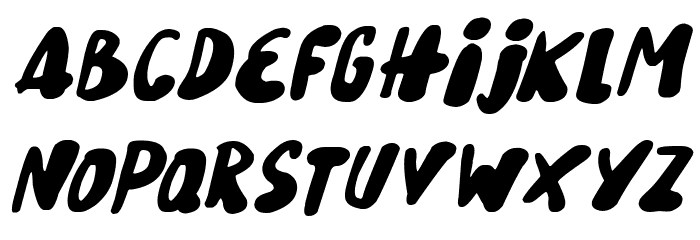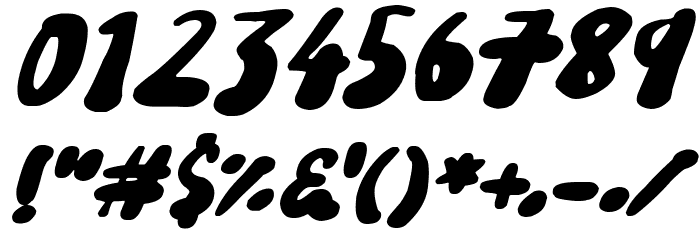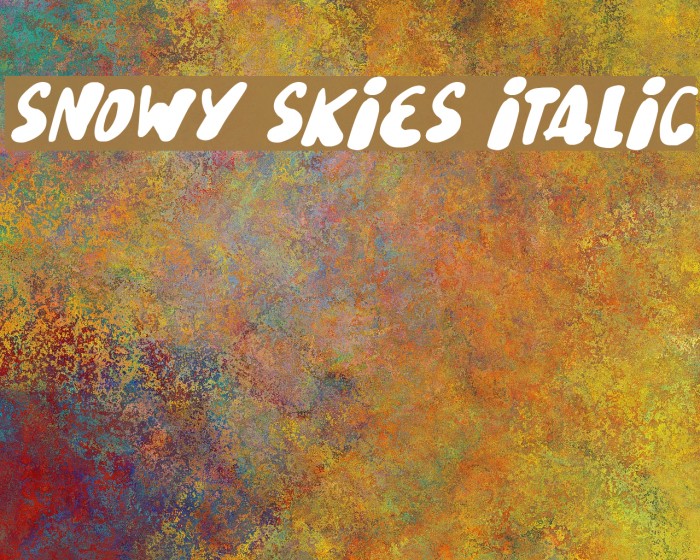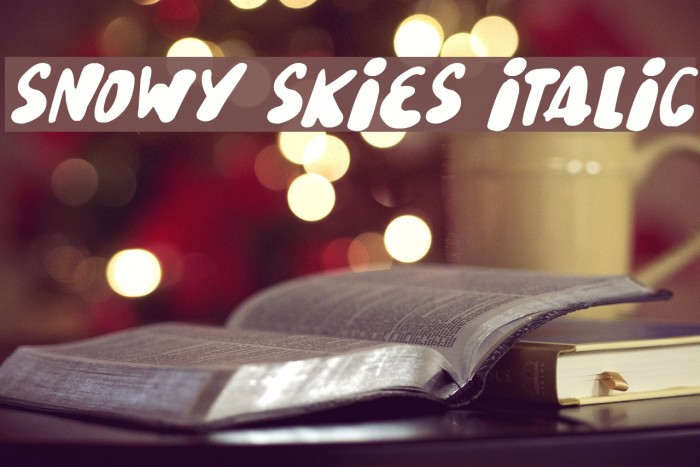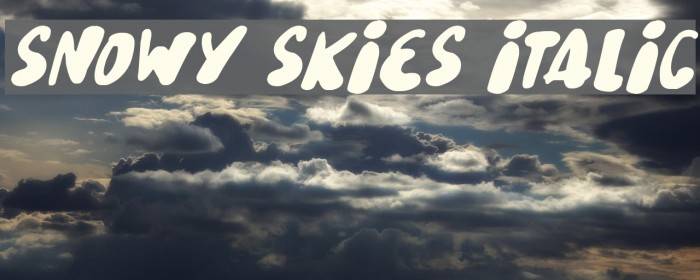
Snowy Skies Italic Font
This font features a bold, playful style with a handwritten appearance. The characters are rounded and slightly slanted, giving it an informal and friendly look. The strokes are thick and consistent, providing a strong visual impact. The uppercase and lowercase letters maintain a cohesive style, with the lowercase letters being slightly smaller but equally bold. The numbers and special characters follow the same design principles, ensuring uniformity across all elements. This font's unique style makes it stand out, making it suitable for creative and expressive projects.
A bold, playful handwritten font with rounded, slanted characters.
- Proposed Projects: Ideal for greeting cards, children's books, playful branding, and creative posters.
- Overall Style: Playful